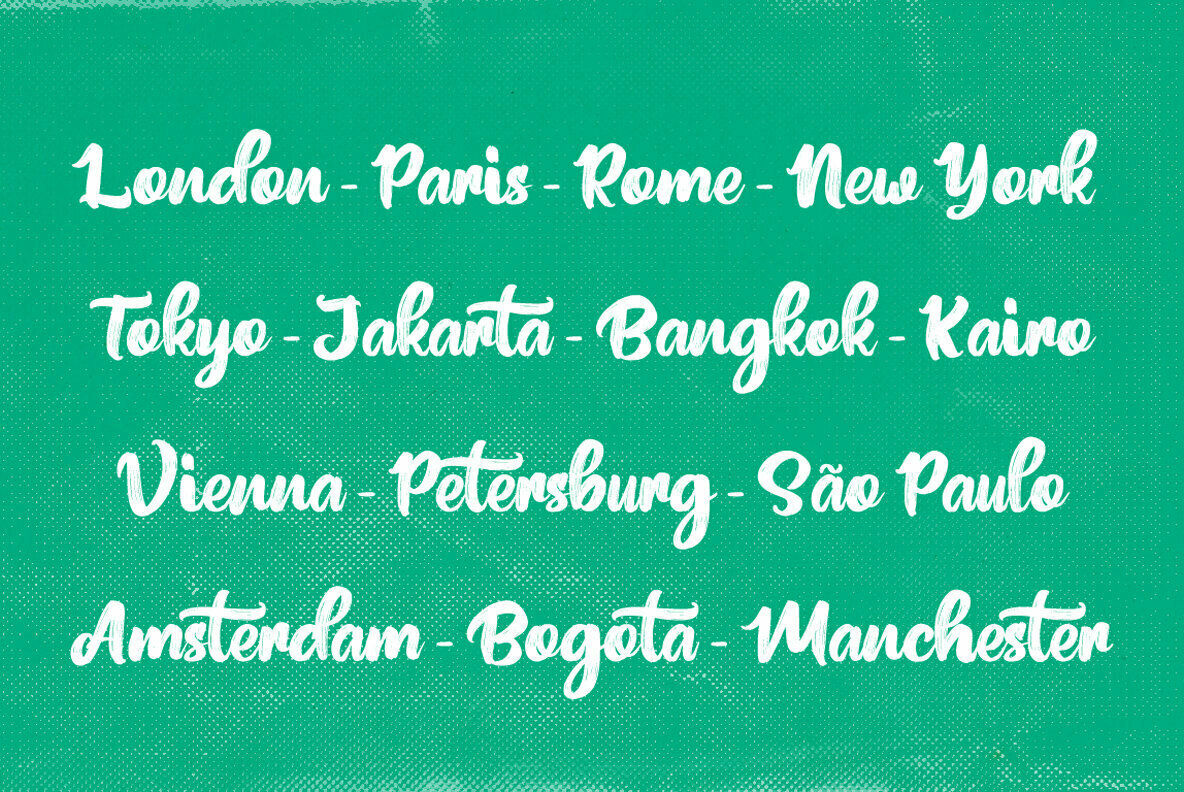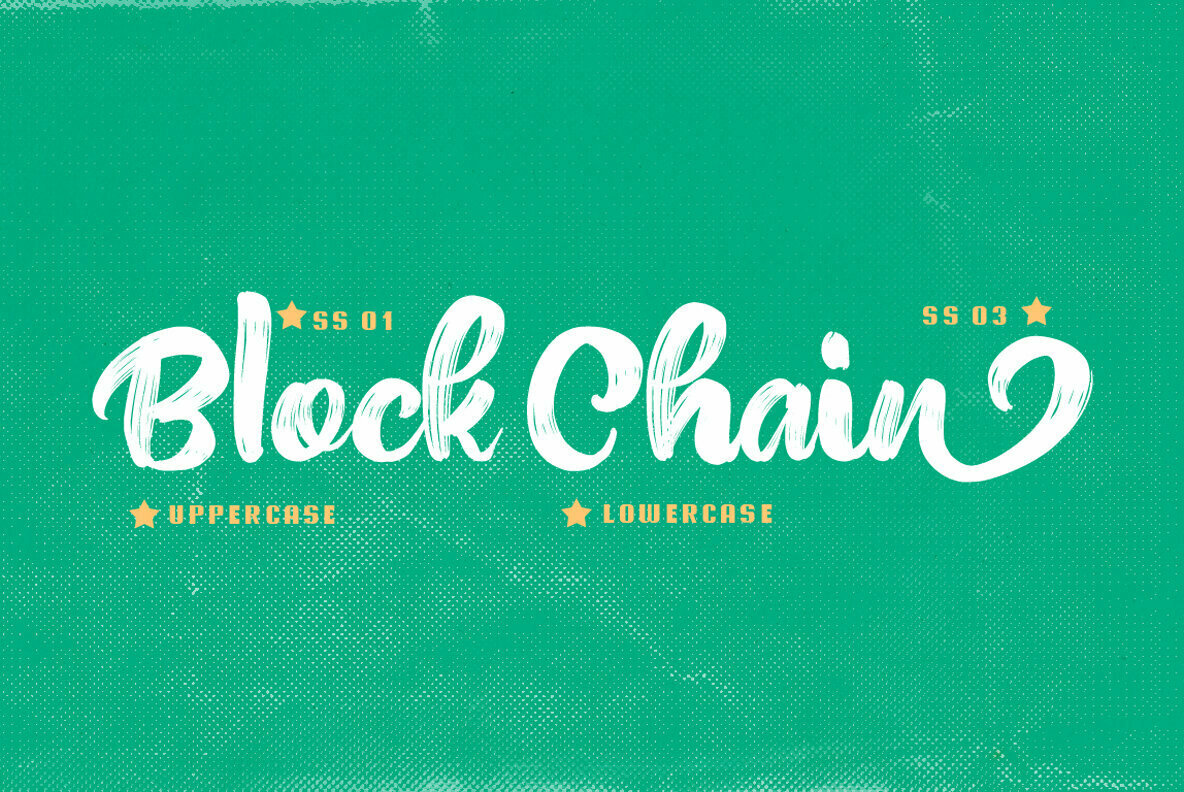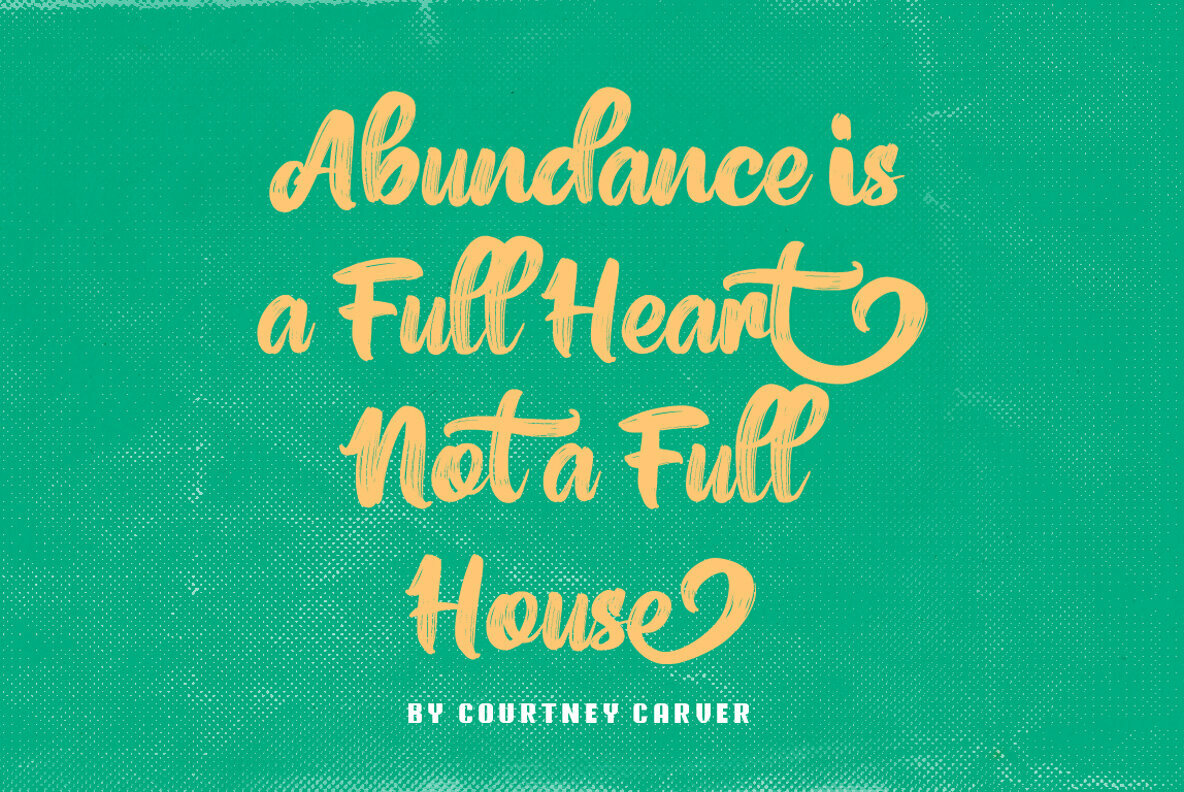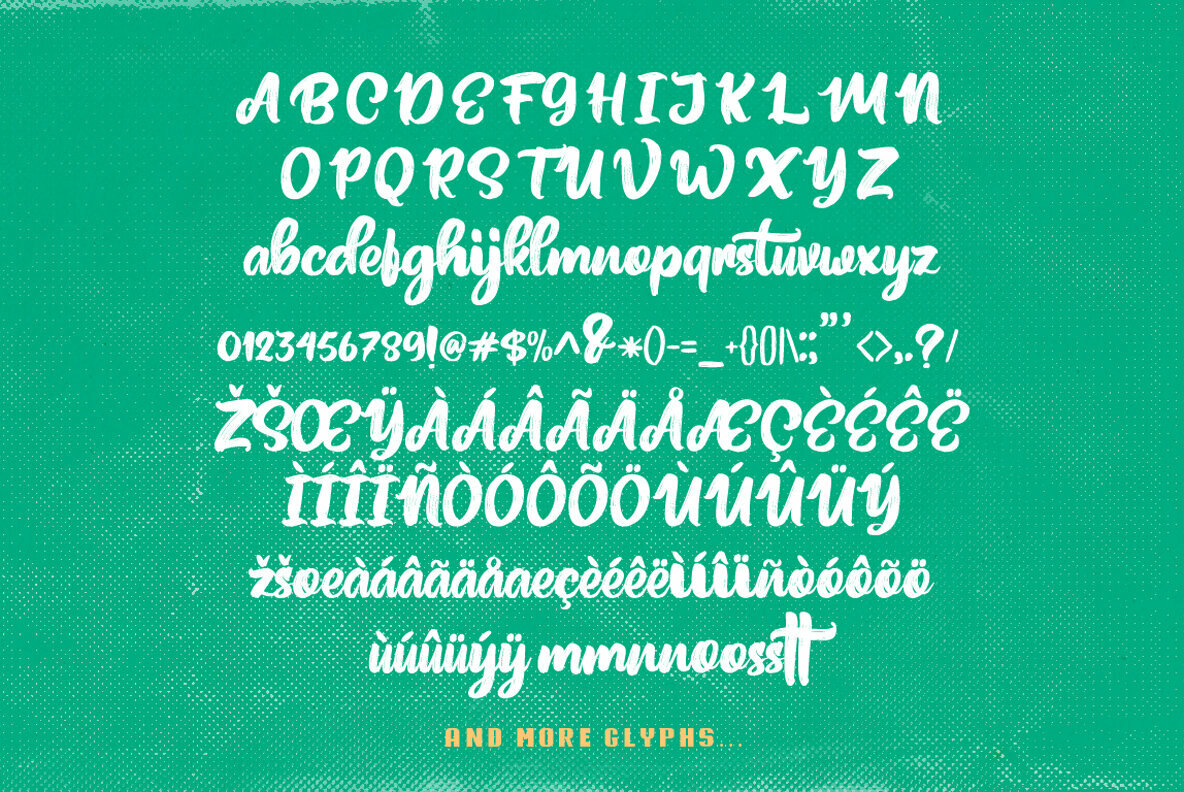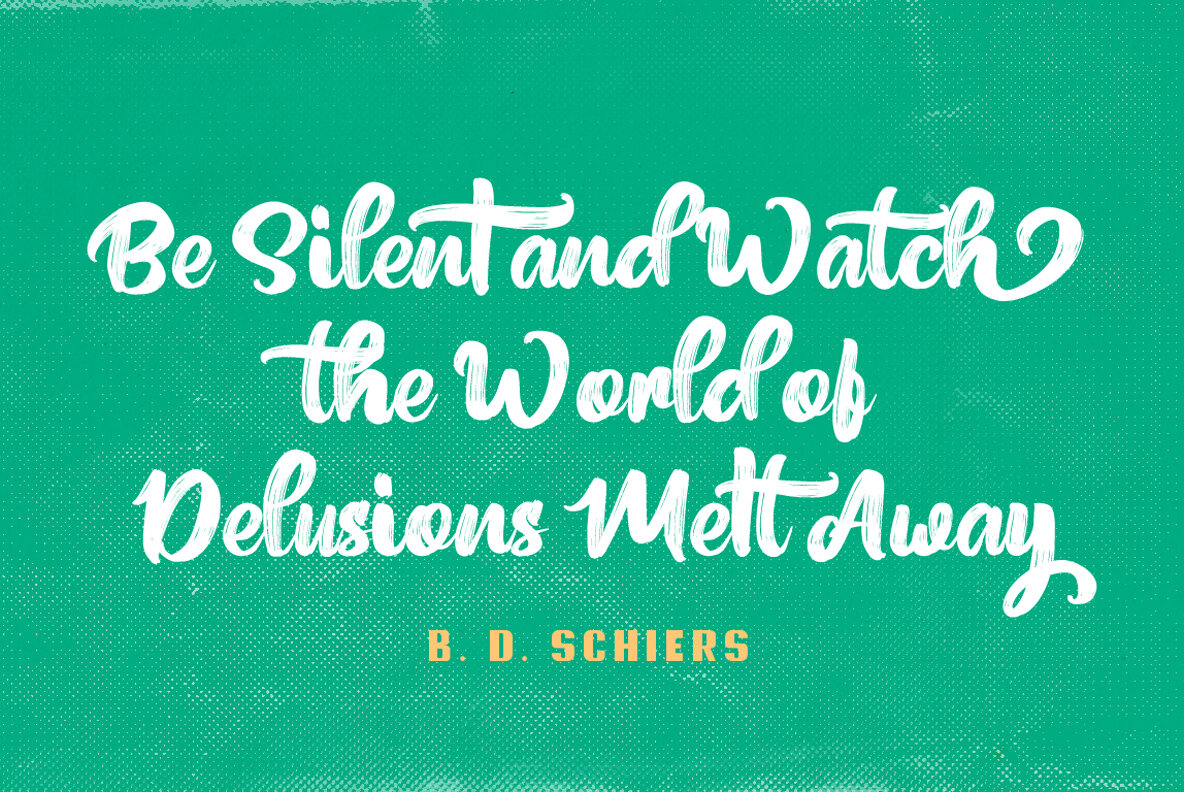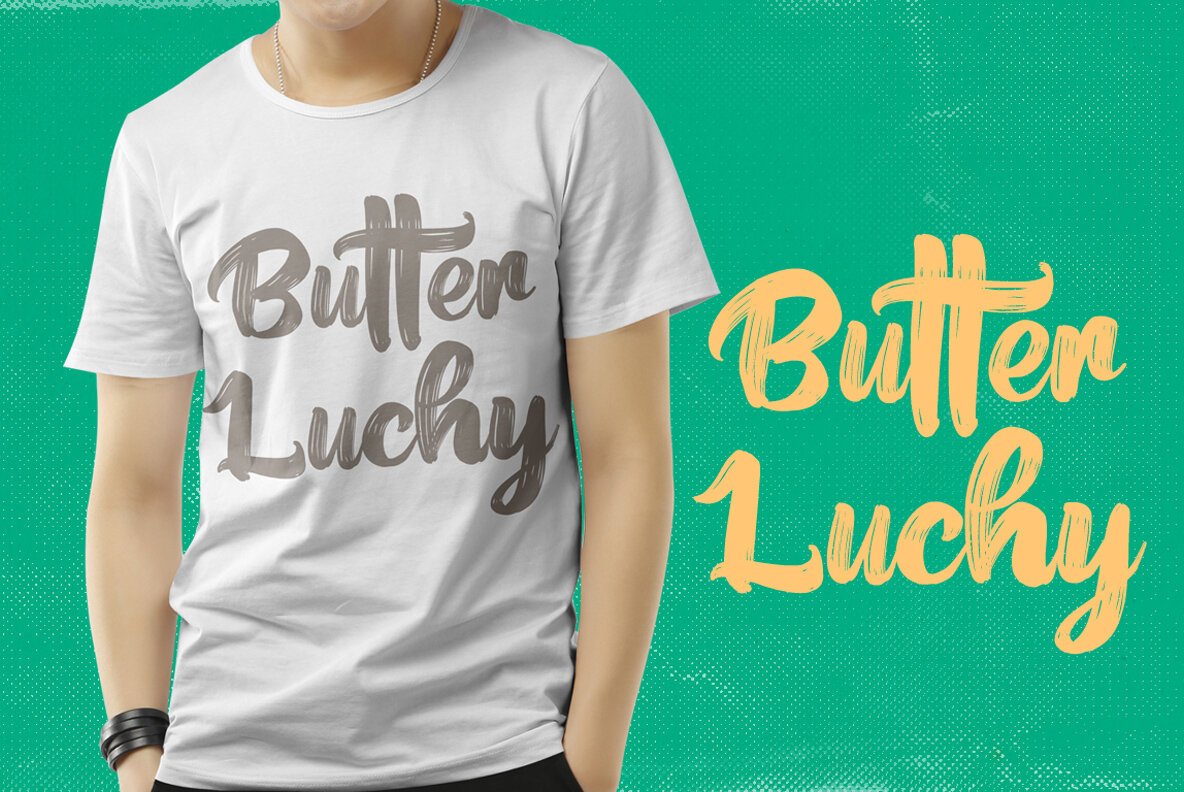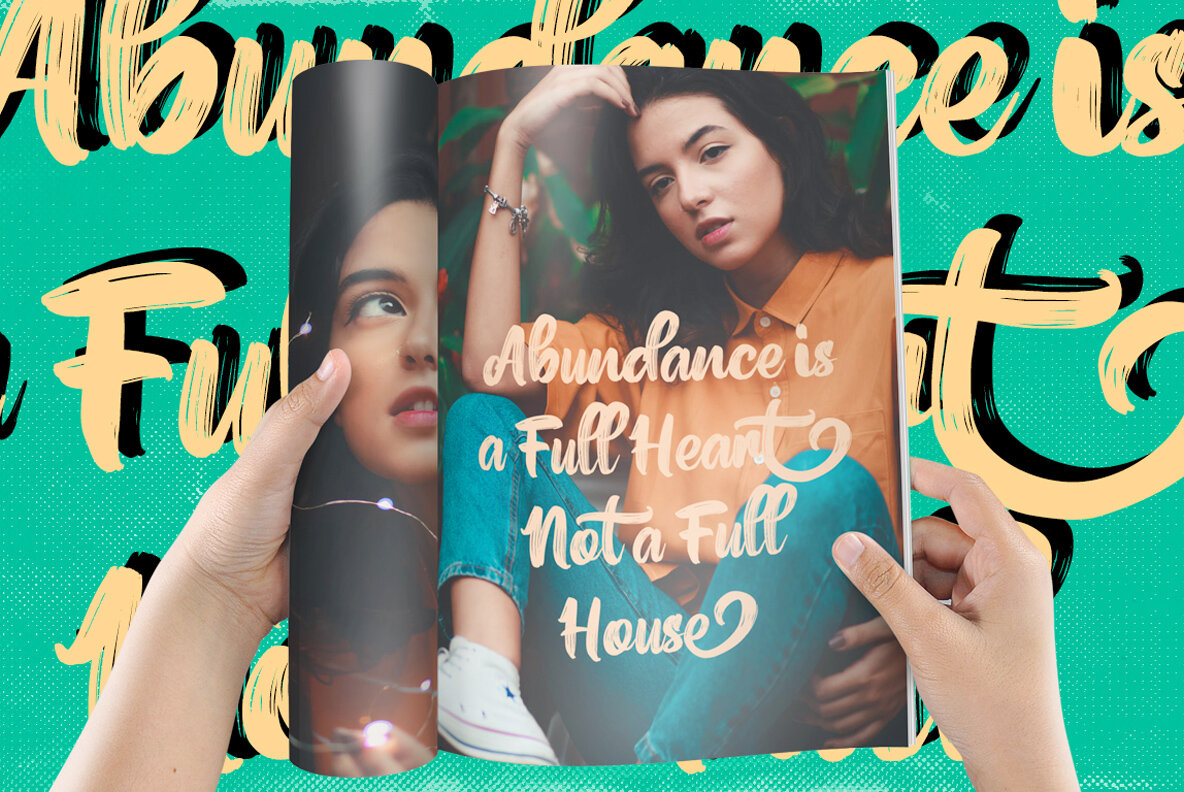
Frigtona Font
Frigtona
Frigtona captures the essence of brush-style handlettering in a script font that brings creativity to life. This font's unique character makes it perfect for various design projects, including wedding invitations, event branding, apparel, logos, badges, and stickers. With opentype features enhancing its versatility, Frigtona promises to be an invaluable asset for any design endeavor.Frigtona: Handlettering Beauty with Versatile Appeal